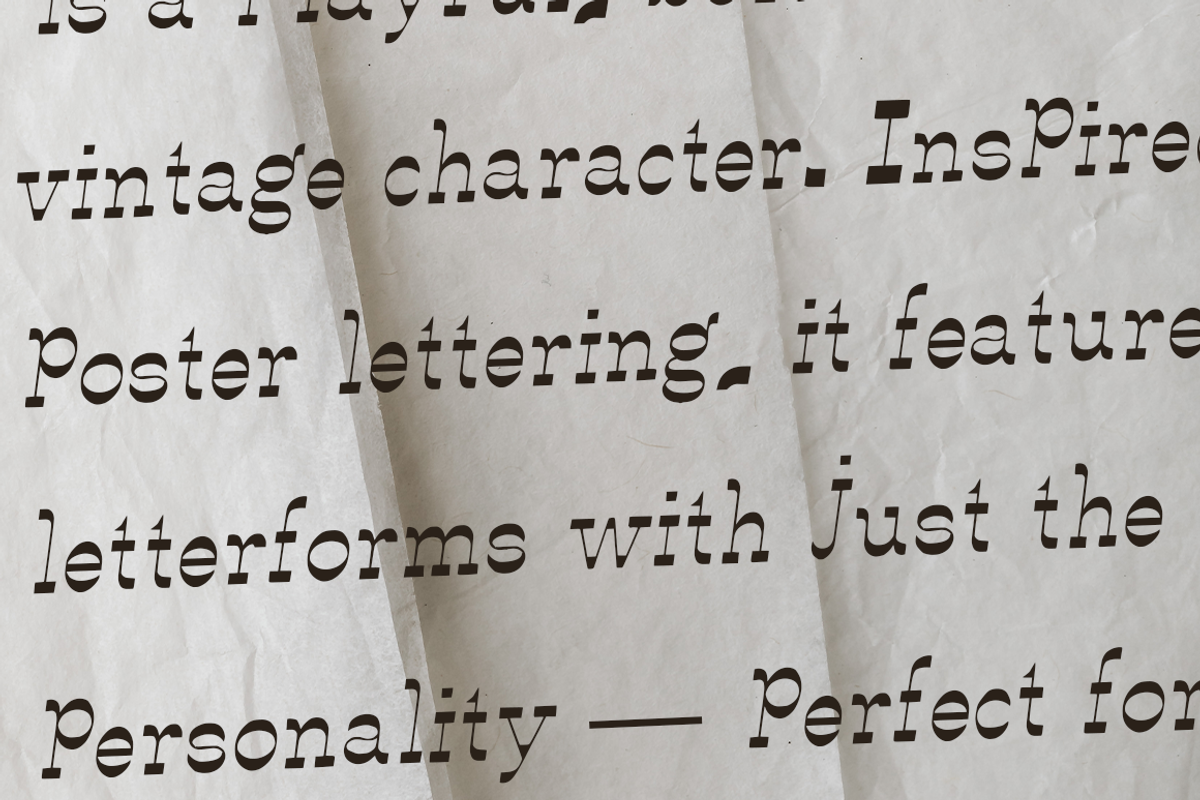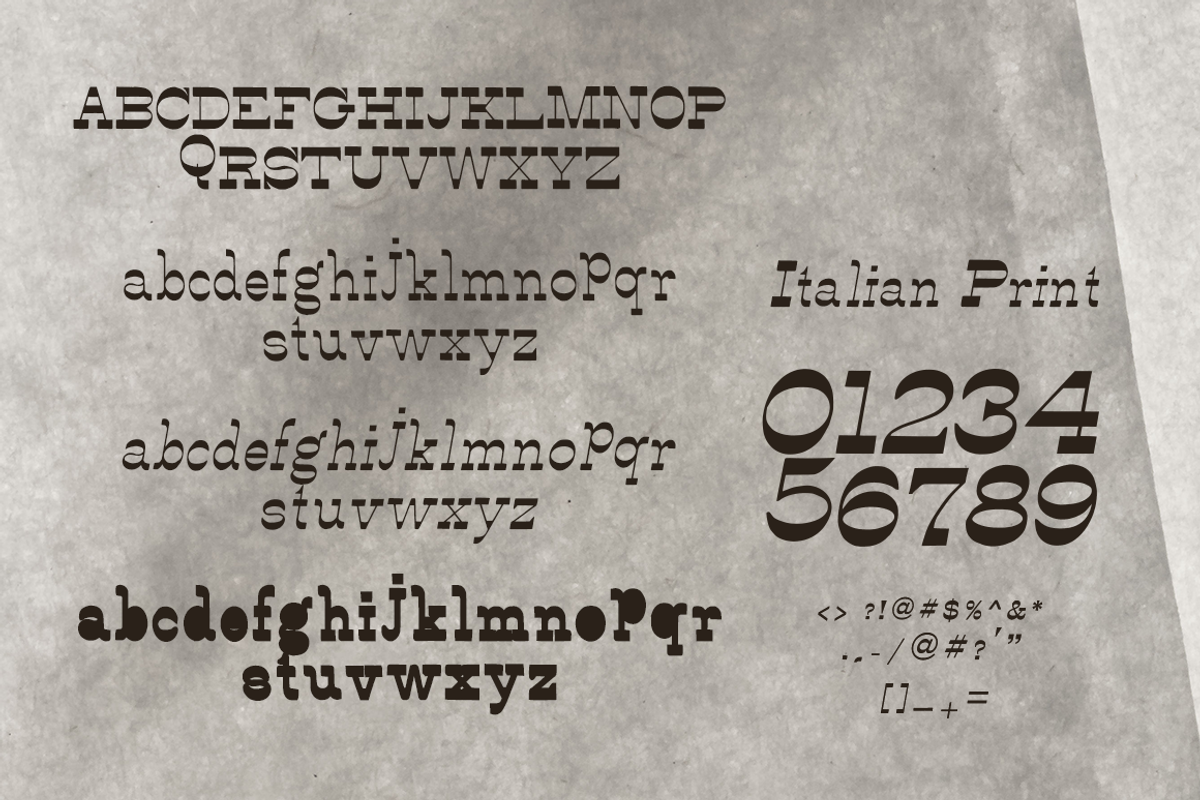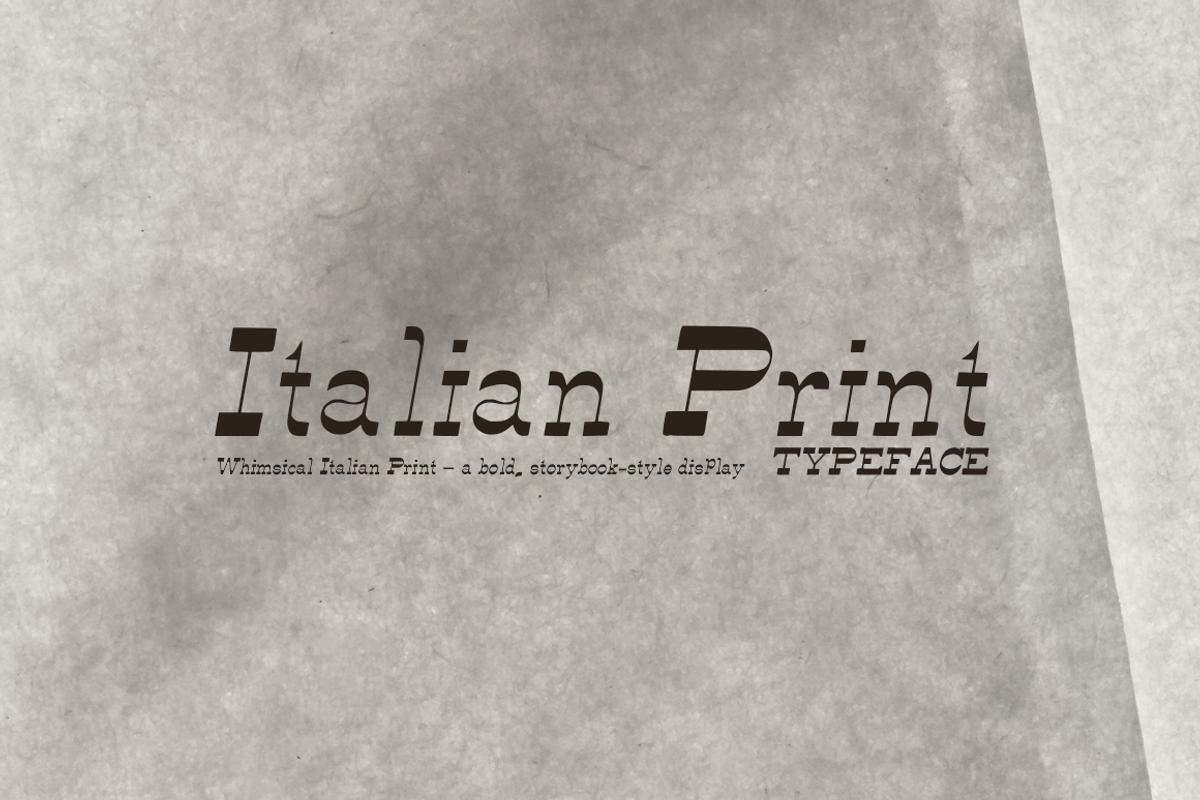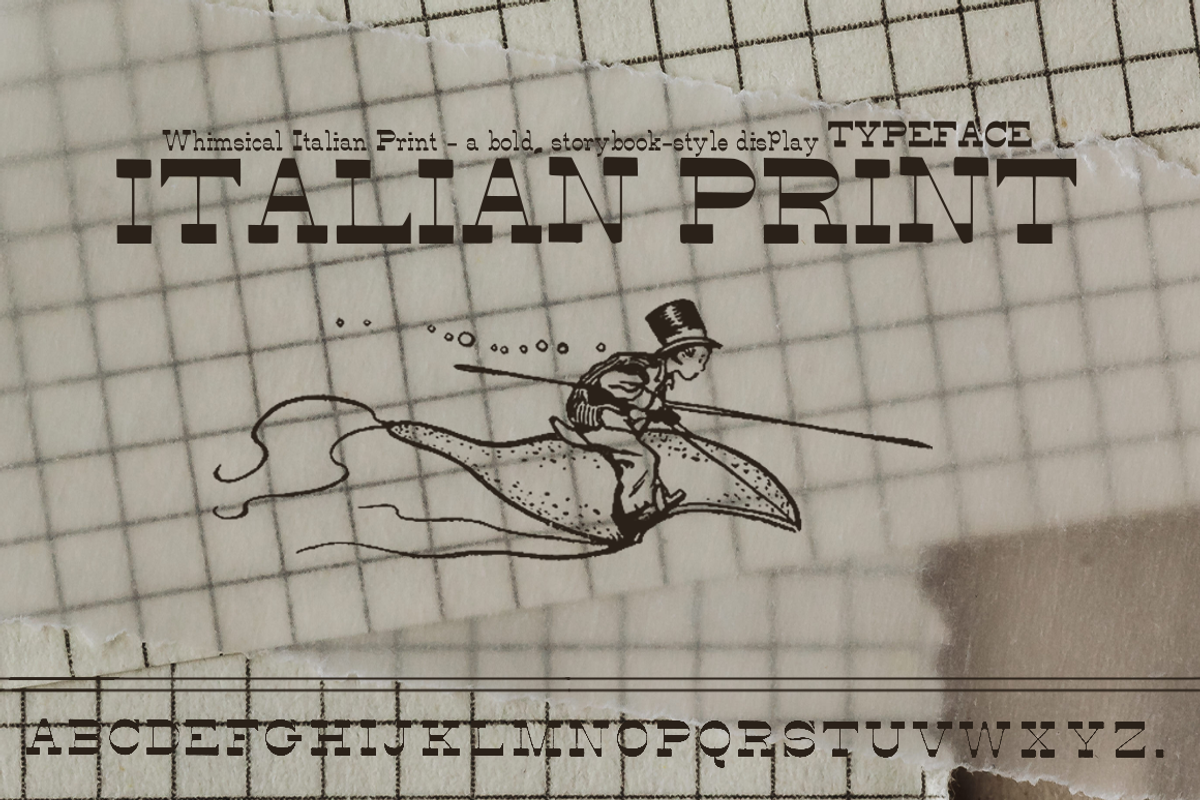
Italian Print - Font
Italian Print Font – Whimsical Vintage Display Typeface
Bring timeless charm and playful elegance to your designs with Italian Print, a bold, storybook-style display font lovingly restored from a vintage book.
This typeface captures the warm, authentic spirit of old-world Italian printing with its distinctive, slightly irregular character shapes, chunky serifs, and delightful whimsical details.
The bold weight gives it a strong visual impact while maintaining a friendly, handcrafted feel that evokes classic children’s books, fairy tales, and nostalgic print ephemera.
Children’s books & storybooks
Vintage-inspired branding & logos
Book covers, posters & packaging
Greeting cards, invitations & quotes
Retro posters, labels & editorial design
Any project that needs a touch of warmth, personality, and old-world character
Italian Print works beautifully as a headline/display font and pairs wonderfully with cleaner sans-serifs or elegant scripts for balanced typography.Whether you're designing a children’s story, a cozy brand identity, or vintage-style print materials, this restored font delivers authentic character with modern usability. Add a sprinkle of Italian whimsy and vintage soul to your next project!